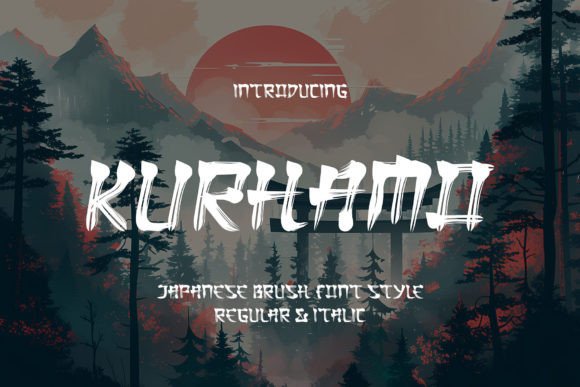
Kurhamo Brush Typeface for Elegant Branding
When I first started my small artisan candle business, I thought the scent was everything. I spent months perfecting the blend of sandalwood and vanilla, convinced that if the product smelled amazing, customers would flock to buy it. But when I launched, sales were sluggish. My packaging looked generic, my social media posts felt disjointed, and my brand lacked a soul. It wasn’t until I redesigned my labels using Kurhamo Brush that everything changed. This isn’t just about picking pretty Fonts; it is about finding a visual voice that speaks directly to your audience. For entrepreneurs and creators, choosing the right typography is often the difference between being overlooked and being remembered.
Transforming Product Labels with Kurhamo Brush Aesthetics
The moment I swapped out my standard, blocky text for Kurhamo Brush, my candle jars stopped looking like commodities and started looking like gifts. Sculpted in a striking Japanese brush script, this typeface brings an immediate sense of artistry and care to any surface it touches. As a Script Handwritten style, it mimics the fluid motion of a master calligrapher’s hand, adding warmth and humanity to cold, mass-produced packaging. Whether you are selling handmade soaps, organic skincare, or boutique coffee blends, the grace of traditional Japanese calligraphy embedded in these subtly crafted characters can elevate your product from shelf-stable to shelf-star.
I noticed that customers began commenting on the "elegance" of the design before they even mentioned the scent. This is the power of high-quality Fonts. They set the expectation for quality. When you use Kurhamo Brush on your product labels, you are signaling that attention to detail matters to you. It creates a tactile feeling, even through a screen or a glass jar. For small business owners, this visual upgrade is a low-cost, high-impact way to justify premium pricing and build a loyal customer base that values aesthetics as much as utility.
Creating Consistent Social Media Graphics with Script Handwritten Styles
Running a small business means wearing many hats, and for me, the hardest hat to wear was "social media manager." I struggled to make my Instagram feed look cohesive. One day I’d use a bold sans serif for a sale announcement, and the next day a playful cartoon font for a behind-the-scenes story. It was messy. Integrating Kurhamo Brush into my digital strategy brought instant harmony. Because Kurhamo is more than a font, it s a journey into Eastern aesthetics, it provides a distinct visual anchor that ties all my content together.
I started using Kurhamo Brush for quote graphics, limited-time offer headers, and story highlights. The flowing lines of this Script Handwritten typeface stand out beautifully against clean, minimalist backgrounds. It draws the eye without shouting. For online sellers and bloggers, consistency is key to building trust. When your audience sees the same elegant typography across your website banners, email newsletters, and social posts, they begin to recognize your brand instantly. This recognition turns casual scrollers into engaged followers. By sticking to a curated selection of Fonts that share the same DNA, you create a professional presence that feels established and trustworthy, even if you are a one-person operation.
Designing Memorable Menus and Thank You Cards for Cafés
A friend of mine owns a cozy neighborhood café, and she recently asked for advice on refreshing her menu. She wanted something that felt welcoming but sophisticated. We decided to test Kurhamo Brush for the section headers and special item highlights. The result was stunning. The font’s ability to emit the grace of traditional Japanese calligraphy added a layer of cultural richness and calm to the dining experience. It wasn’t just a list of drinks; it became a curated experience.
Beyond menus, Kurhamo Brush is perfect for thank-you cards and packaging inserts. In the e-commerce world, the unboxing experience is your last chance to make a lasting impression. Writing a simple "Thank You" in this striking Japanese brush script makes the customer feel valued and appreciated. It adds a personal touch that automated emails simply cannot replicate. Whether you are a bakery owner labeling cookie boxes or a boutique seller including a note in a shipment, using Script Handwritten elements like Kurhamo makes your communication feel human. It bridges the gap between digital transaction and personal connection, encouraging repeat business and positive word-of-mouth referrals.
Pairing Kurhamo Brush with Modern Typography for Balance
One common mistake new designers make is using too many decorative fonts at once. Kurhamo Brush is a statement piece. It shines brightest when it has room to breathe. To get the most out of this Script Handwritten asset, pair it with clean, neutral Fonts. A simple sans serif works wonderfully for body text, providing a modern contrast to the organic flows of the brush script. This combination ensures readability while maintaining visual interest.
For example, on a wedding invitation or a luxury product label, use Kurhamo Brush for the names or titles, and a lightweight serif or sans serif for the details like dates, ingredients, or addresses. This hierarchy guides the reader’s eye and prevents the design from feeling cluttered. Remember, this font is best suited for headlines, short phrases, and logos rather than long paragraphs. Its intricate details can become hard to read at very small sizes, so reserve it for moments where you want to create impact. By balancing the artistic flair of Kurhamo with structured, modern typography, you create a brand identity that is both beautiful and functional.
Additionally, explore any included alternates or ligatures. These subtle variations allow you to customize the look of your text, ensuring that no two designs look exactly the same. For small business owners, investing in properly licensed, high-quality Script Handwritten assets protects your brand from legal issues and ensures you have the technical flexibility to scale your designs across different platforms. Taking the time to understand these details now will save you headaches later, allowing you to focus on what you do best: creating amazing products and services for your customers.